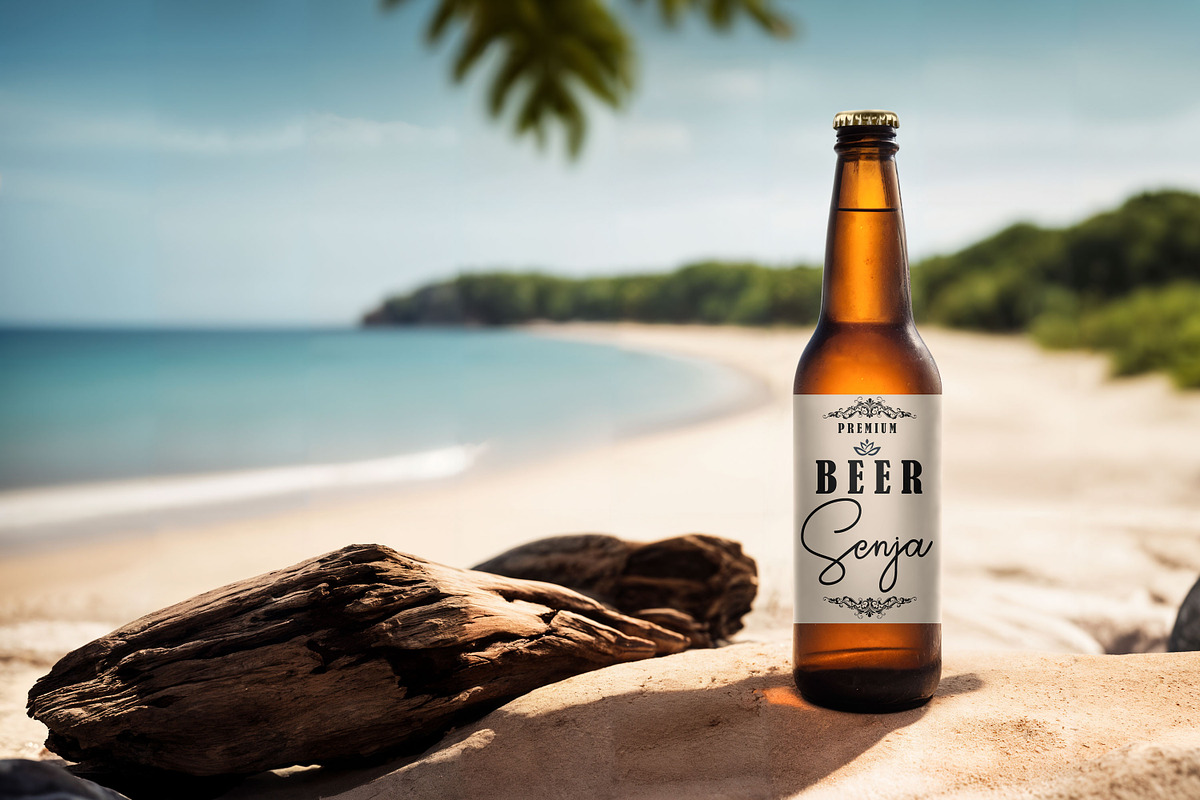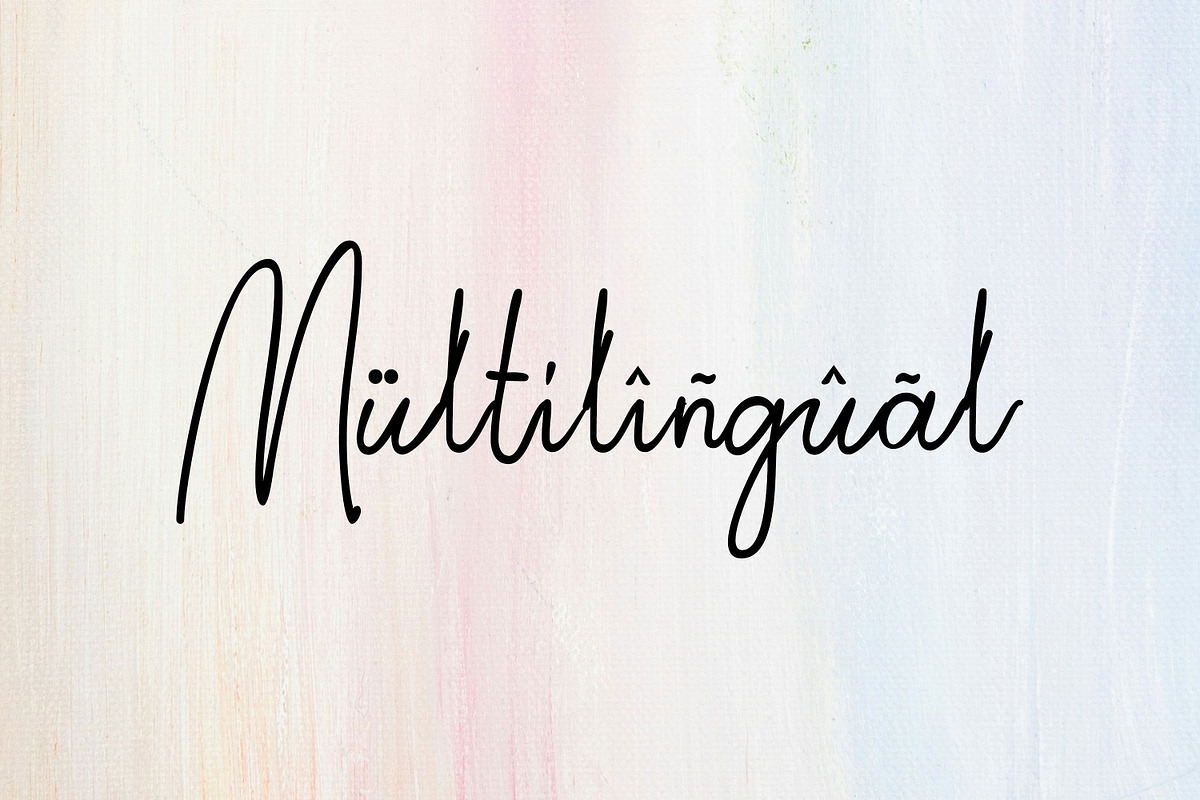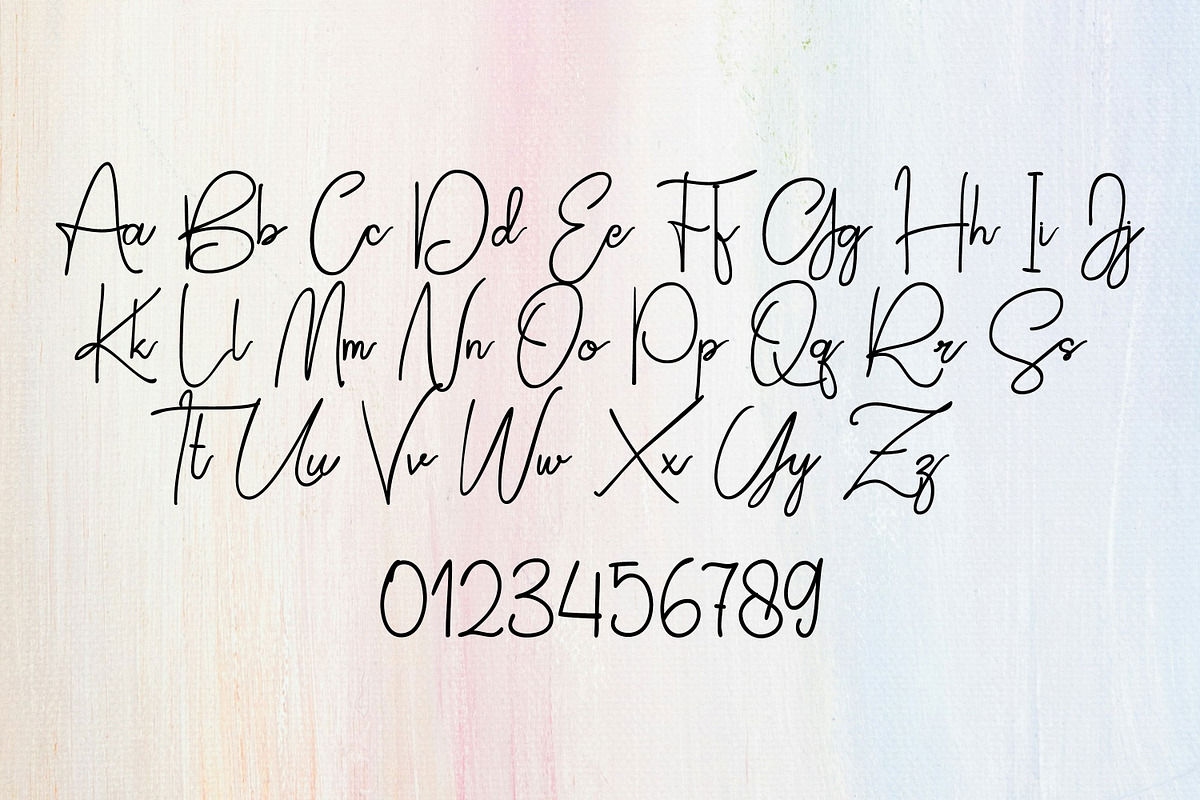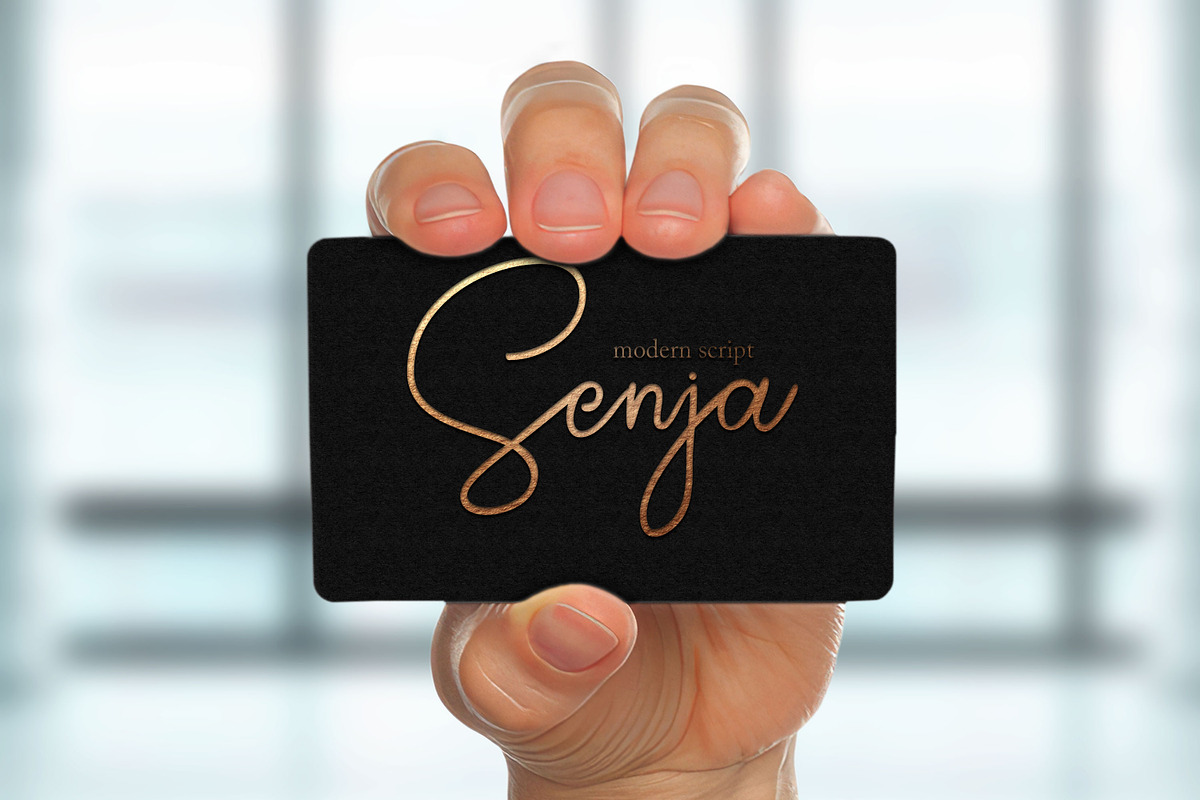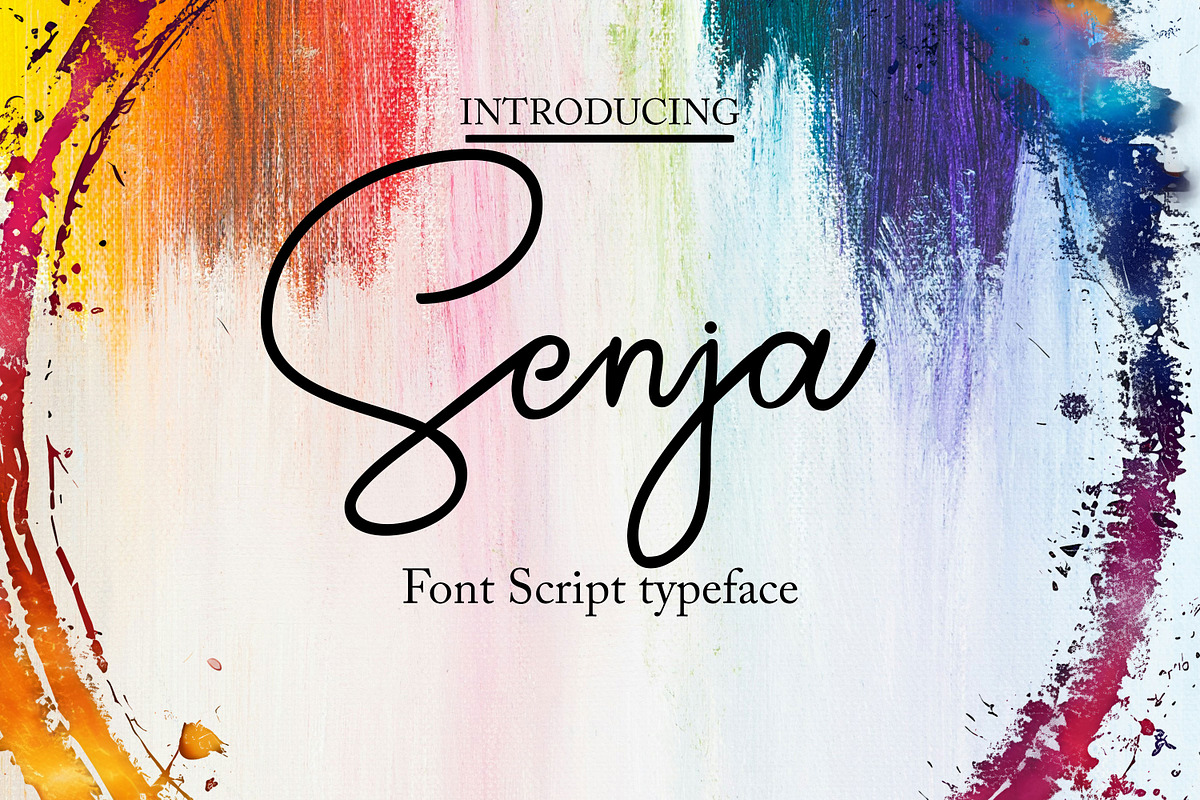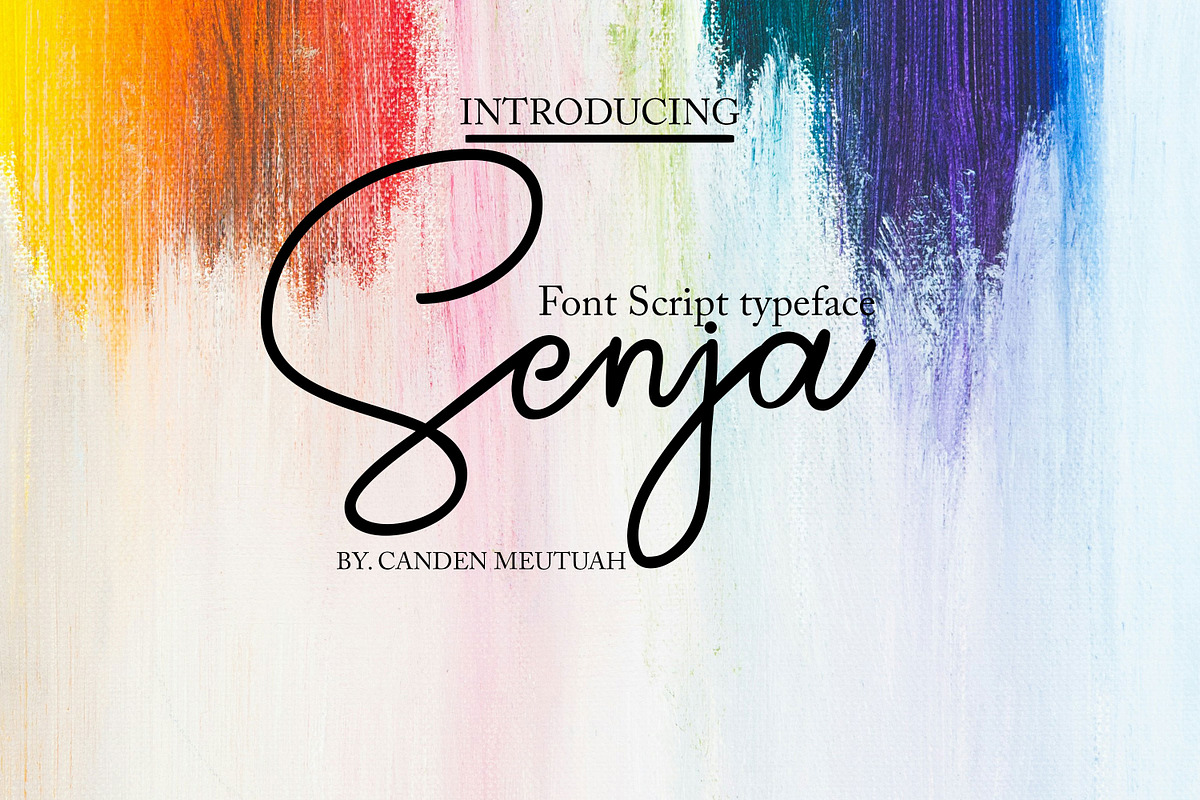
Senja
Senja is an elegant and refined handwritten typeface. It is perfect for your various design needs, such as logos and branding, social media posts, advertisements, business cards, wedding invitations, product designs, etc.
You will feel extraordinary beauty when combining this font with your work.
you will not be disappointed with the results.